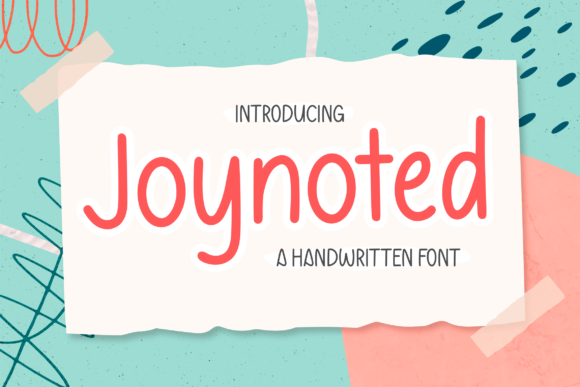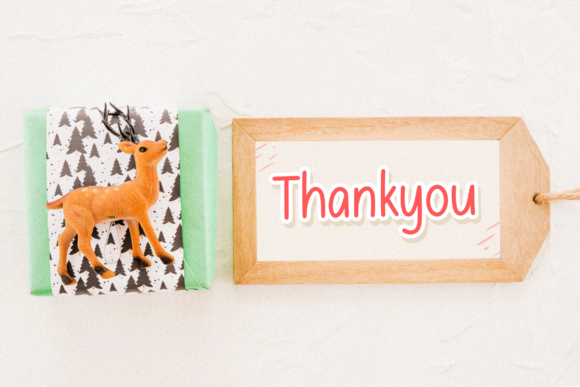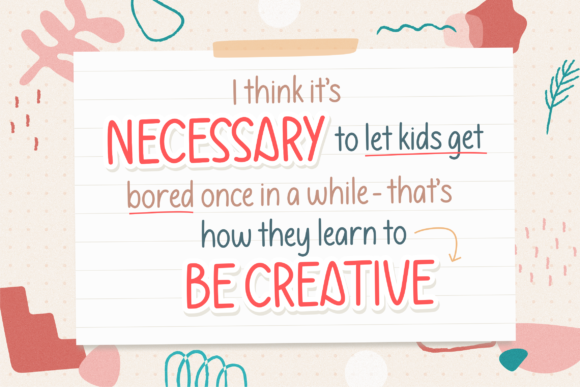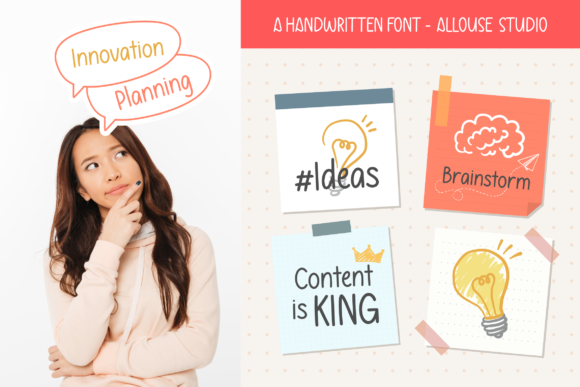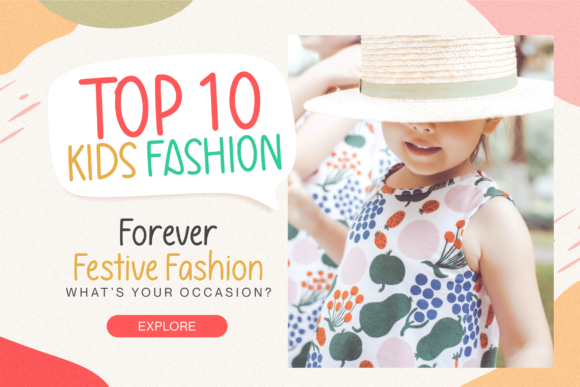
About Joynoted Font
Joynoted is a cute and simple lettered handwritten font that can be used for all chalkboard quotes or teaching material! Its authentic look will add a personal and realistic feel to your designs.